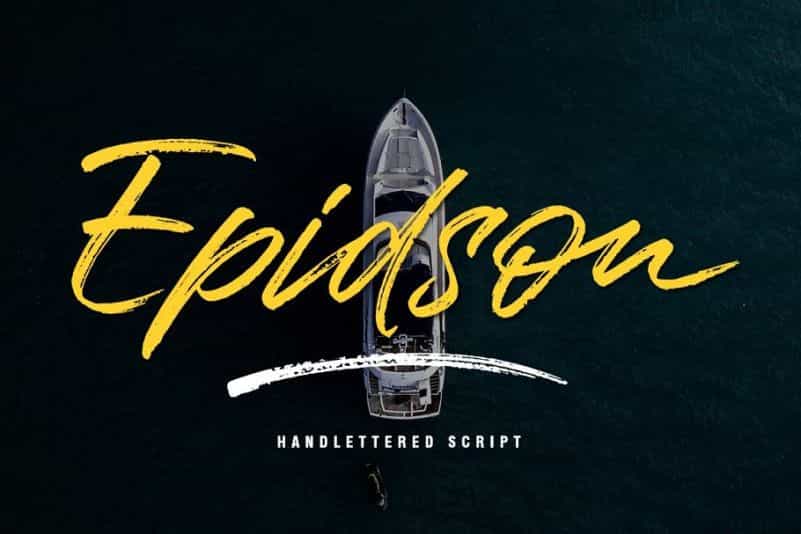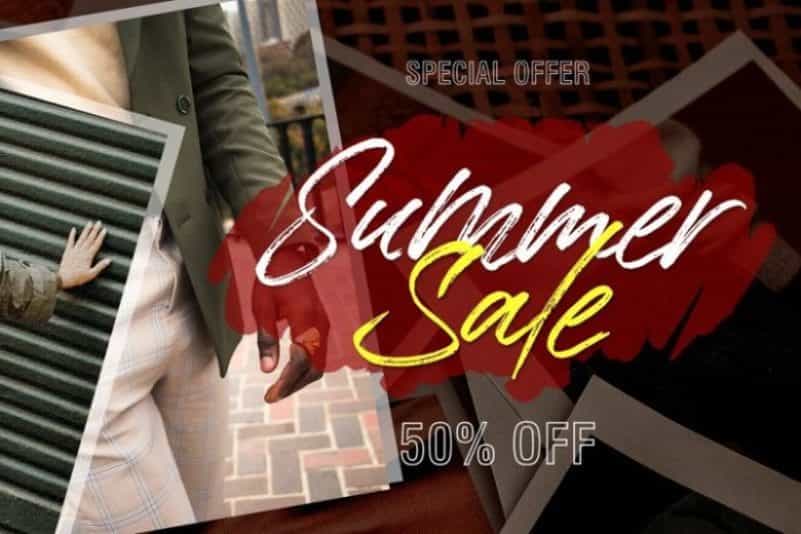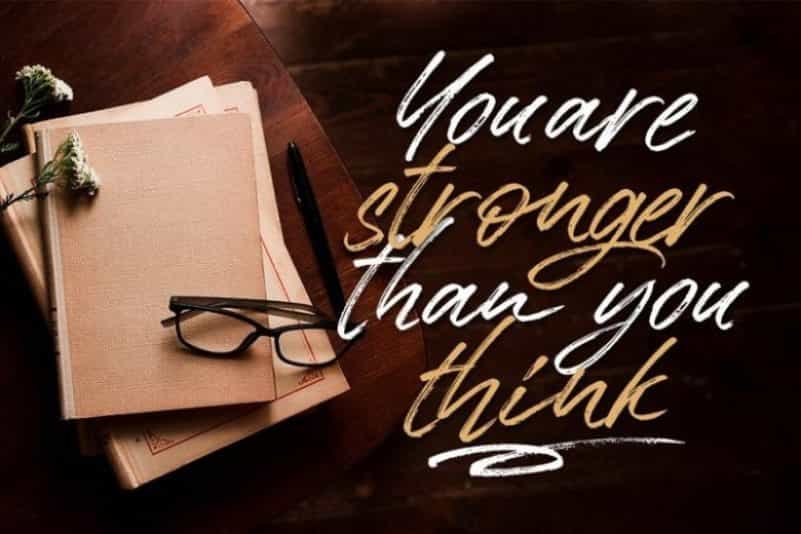
Epidson is a rough brush script font with a well defined style and a lot of movement. This font is perfect for your next creative project like logos, printed quotes, invitations, cards, product packaging, headers, logos, letterheads, posters, clothing designs, labels, and so on. Epidson has multi-language support, numbers, punctuation and also some extra ligature and swash.